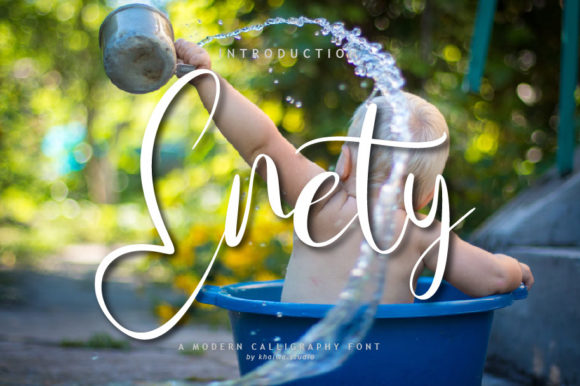
Erety Script Font
Journey into the enchanting realm of Erety Script, a font that exudes romance and timeless elegance. Its delicate curves and swirling strokes are reminiscent of love letters penned by star-crossed lovers, evoking a sense of nostalgia and heartfelt emotions. As you explore this extraordinary script font, you'll discover a treasure trove of possibilities for captivating designs that tug at the heartstrings.
Erety Script is not just a font; it's a gateway to a world of emotions and expressions. Its graceful lines and expressive characters effortlessly convey the depth of human connection, making it the perfect choice for authors, poets, and anyone seeking to create designs that resonate with audiences on a profound level. Whether you're crafting wedding invitations, designing book covers for romantic novels, or creating social media posts that stir the soul, Erety Script is your trusted companion.
With Erety Script, you'll have the power to transform ordinary words into captivating narratives. Its elegant flourishes and subtle variations add a touch of intrigue and mystery to your designs, inviting readers to embark on a journey of emotions. Let your imagination soar as you create logos that exude sophistication, branding that speaks to the heart, and quotes that inspire and uplift. Erety Script is your muse, guiding you towards designs that leave an unforgettable mark.
So, embrace the magic of Erety Script and embark on a creative adventure that knows no bounds. Let your designs bloom with romance, passion, and timeless beauty. Discover the boundless potential of this enchanting font and watch as your creations captivate and enchant audiences worldwide.